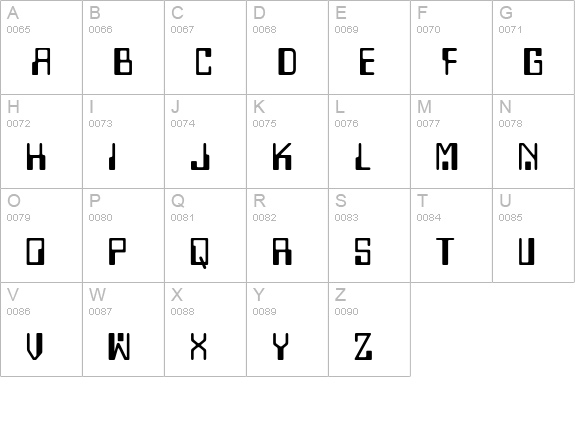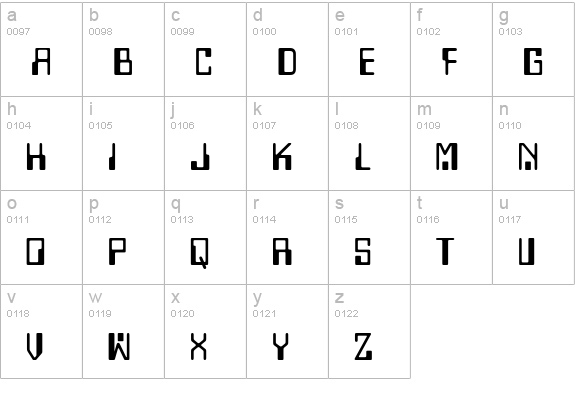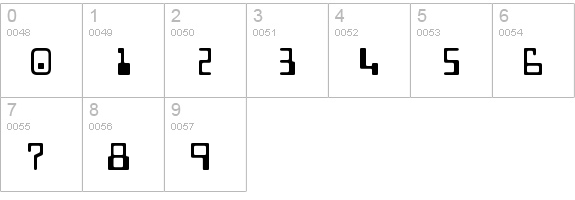
CgComputer Font Details
Introducing the elegant and modern CgComputer font, a versatile typeface that combines sleek design with a touch of sophistication. Perfect for adding a contemporary flair to any project, this font exudes professionalism and style. With its clean lines and sharp edges, CgComputer is a standout choice for both digital and print applications. Best of all, CgComputer is available for free download at FontsMarket.com. This means you can easily access this high-quality font without breaking the bank. Whether you're working on a website, presentation, or branding project, CgComputer is sure to elevate your design with its distinctive look and feel. Don't miss out on this fantastic opportunity to enhance your work with the CgComputer font today!